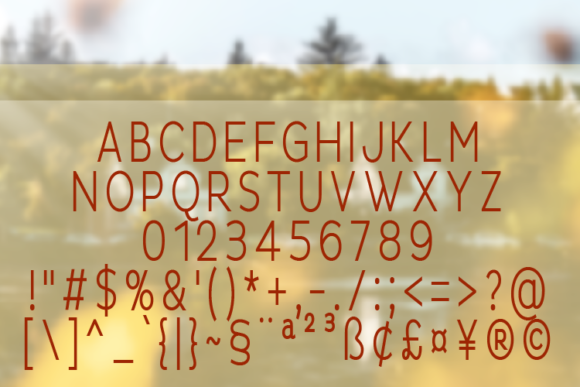
Introduction to Nueve Medium Font
As a designer, you’ve probably experienced that moment when you’re working on a creative project and you just can’t seem to find the right font to bring it all together. The perfect font can make or break the aesthetic of your design, and it’s often the difference between a mediocre and a truly exceptional piece of work.
Enter Nueve Medium Font, a stunning sans serif font that’s been making waves in the design community for its elegance, sophistication, and versatility. With its clean lines and transparent background, Nueve Medium Font is the perfect choice for any designer looking to elevate their design game.
- Unique, modern design suitable for creative projects and design resources
- Features a transparent background, making it ideal for use on various backgrounds
- High-quality font with precise details and smooth lines, ensuring a professional look
- Designed to be highly legible, making it suitable for body text and headings in various creative projects
Honest Review: Nueve Medium Font
I recently stumbled upon the Nueve Medium Font, a beautiful addition to any design resource. For my latest creative project, I was looking for a clean and elegant font that would elevate the aesthetic. The Nueve Medium Font delivered just that.
What works well is its versatility. It can be used for a wide range of projects, from logos to body text, and looks great in both print and digital formats. The font’s high quality is evident, even when used with a transparent background.
Here are some of my favorite features:
- Works well in both print and digital formats
- Looks great with a transparent background
One limitation I noticed is that the font doesn’t have a bold weight, which may limit its use in certain situations. Additionally, the font family is quite limited, with only a few weights and styles available.
Overall, I’m impressed with the Nueve Medium Font. It’s a great addition to any design resource, and I’m excited to see how it will be used in future creative projects. ⚠️ However, the limitations mentioned above may affect its use in certain situations.
Common Use Cases and Tips
Nueve Medium Font is ideal for use in logos, headings, and body text. For optimal results, use the font with a transparent background to achieve a clean and modern look. Experiment with different font sizes and styles to find the perfect combination for your creative project.